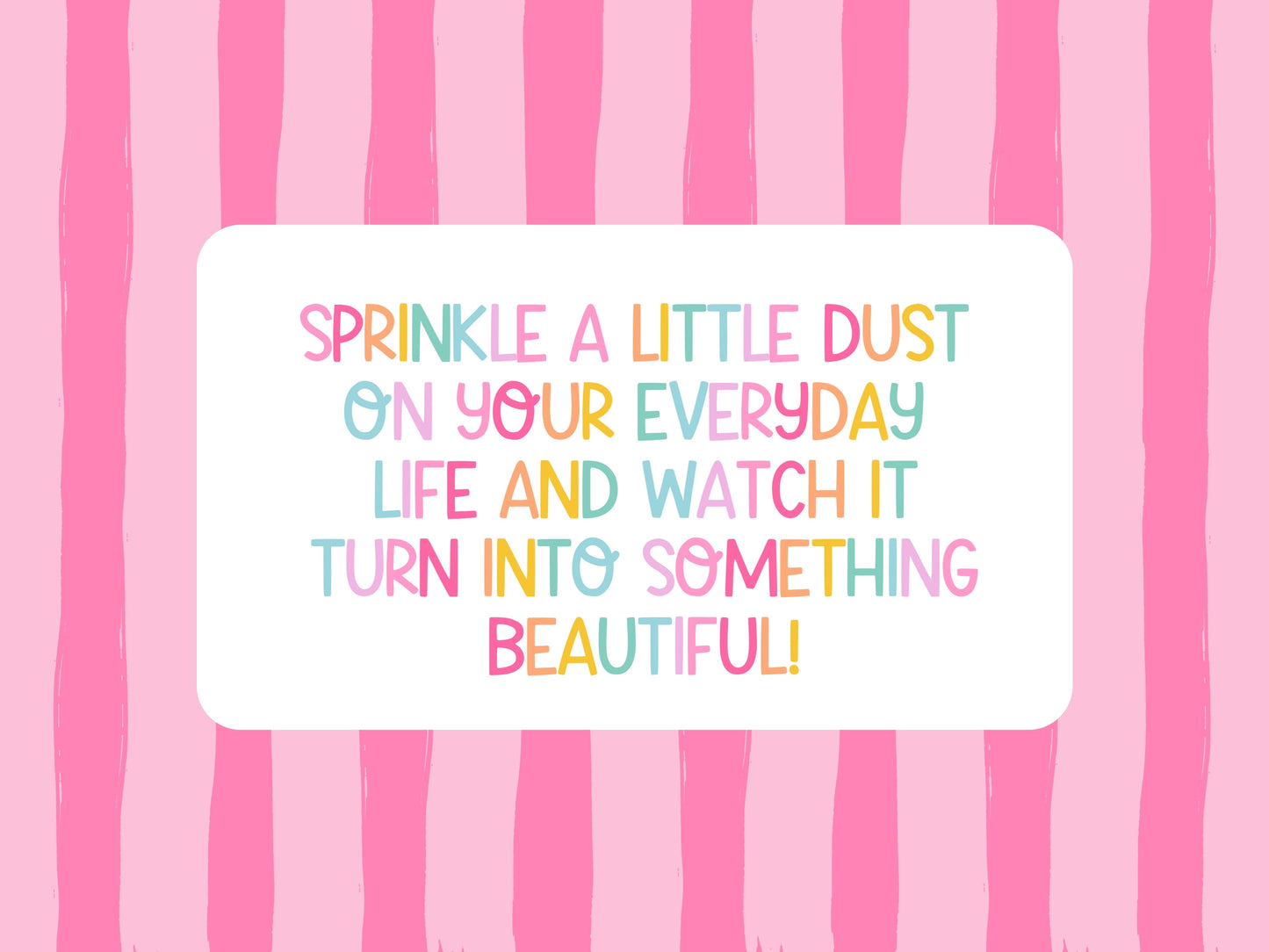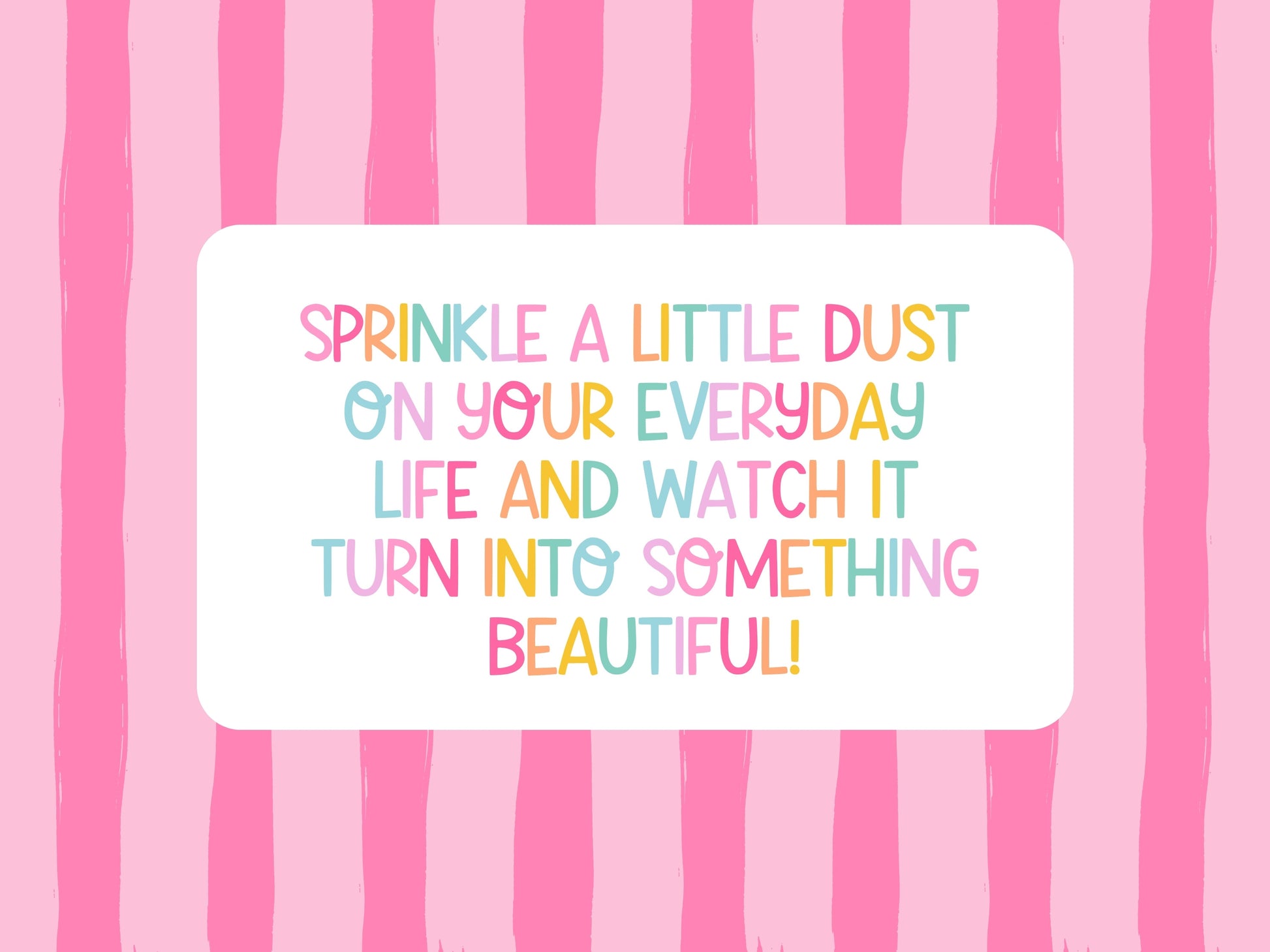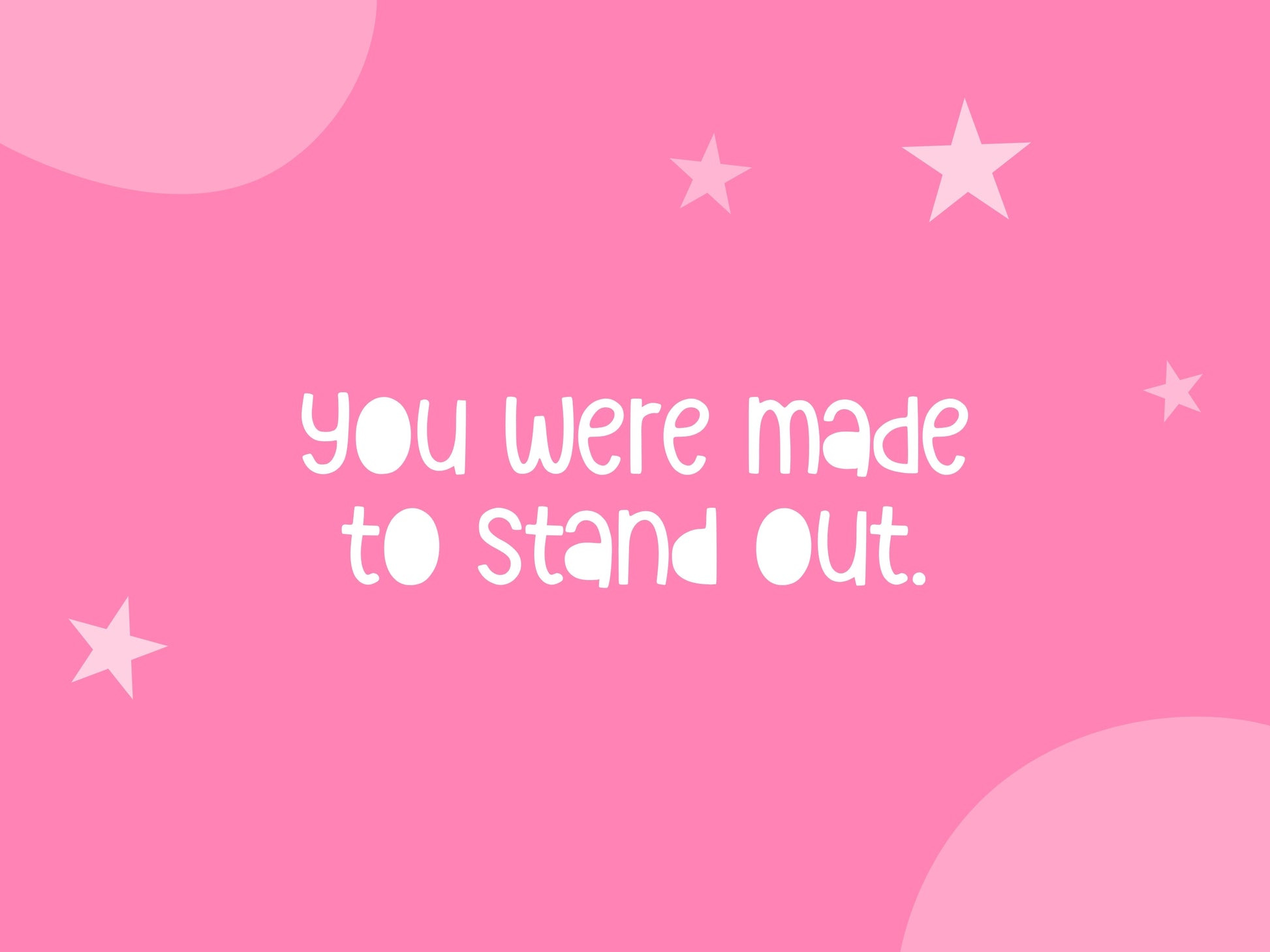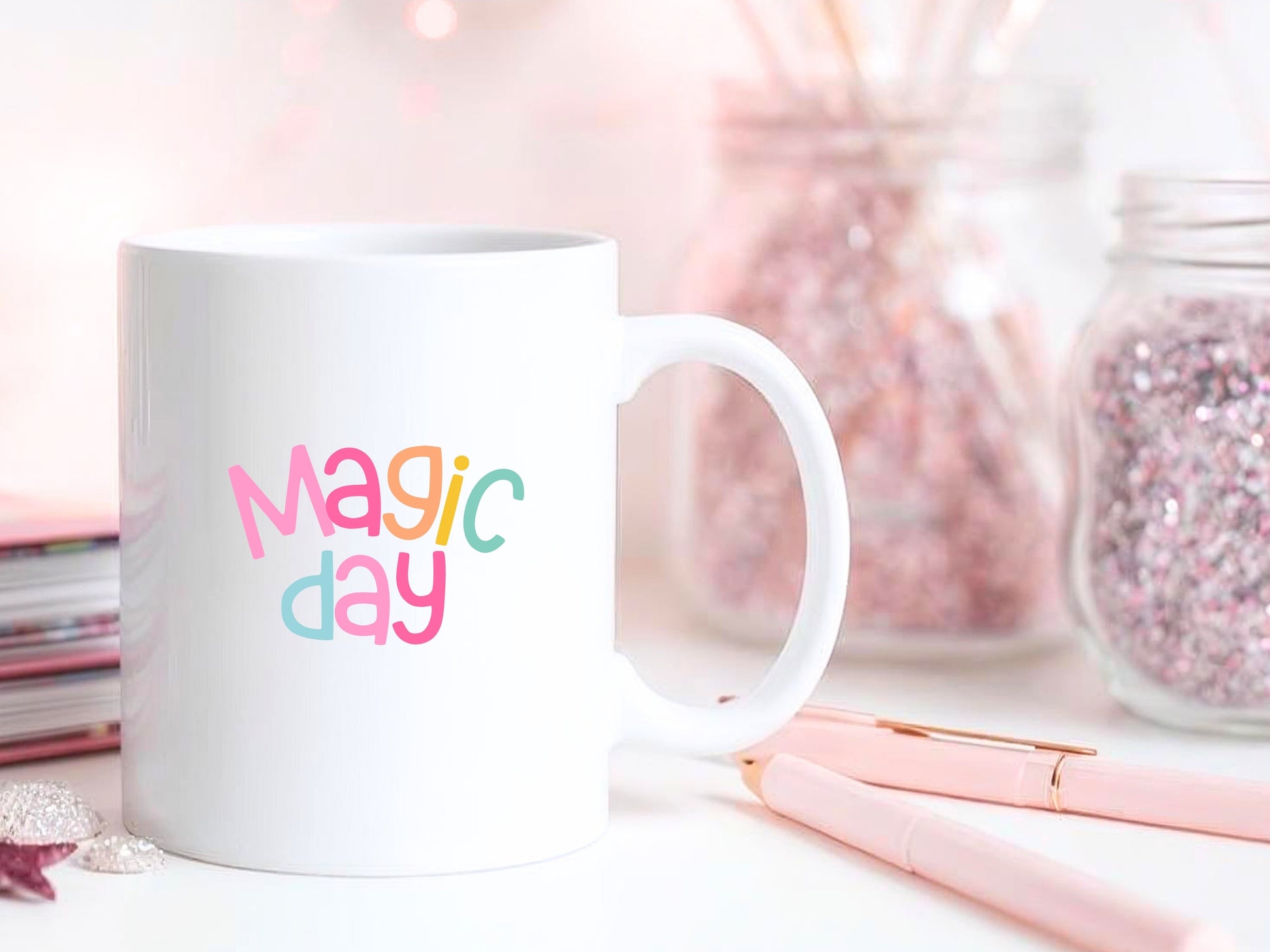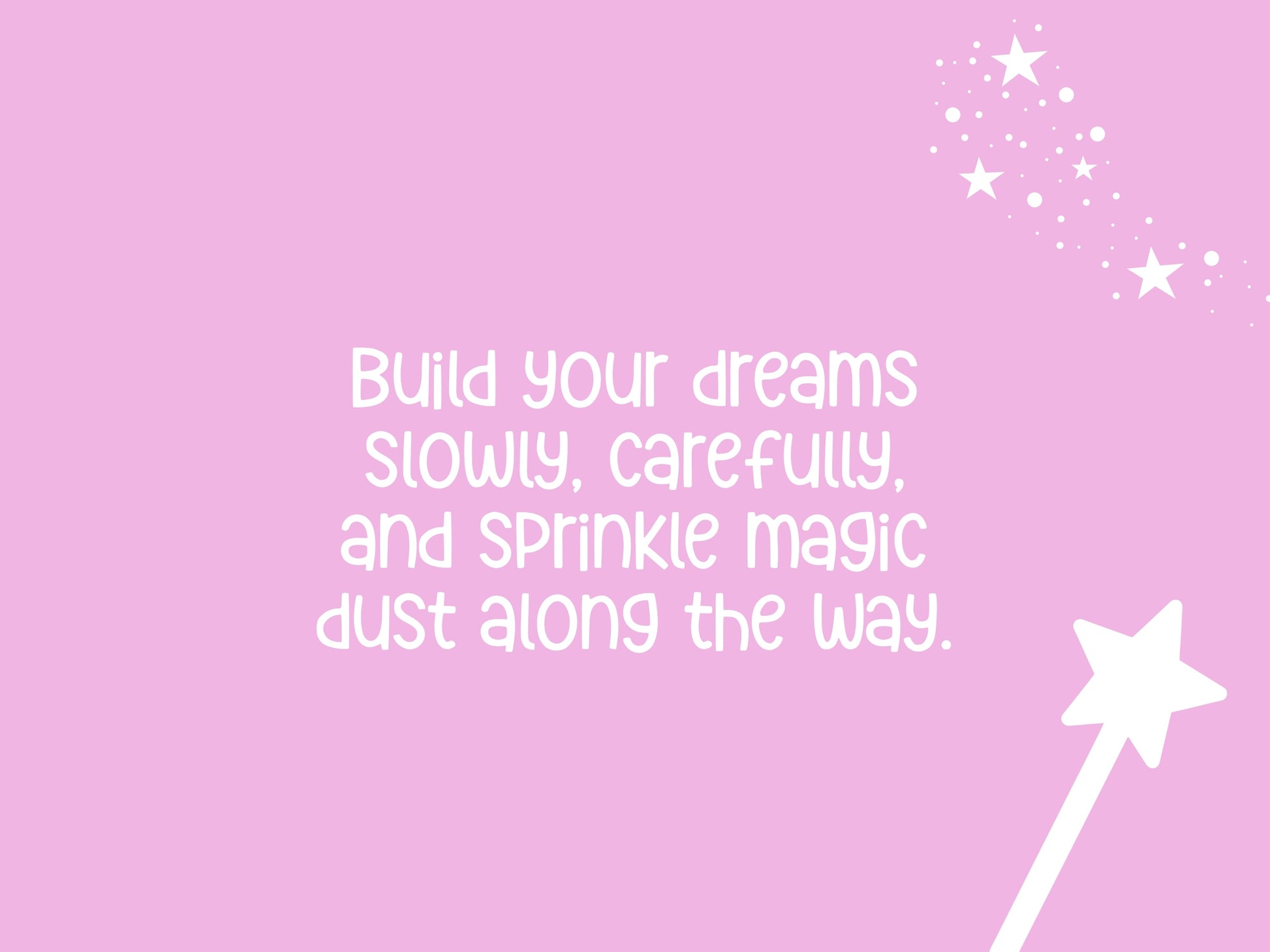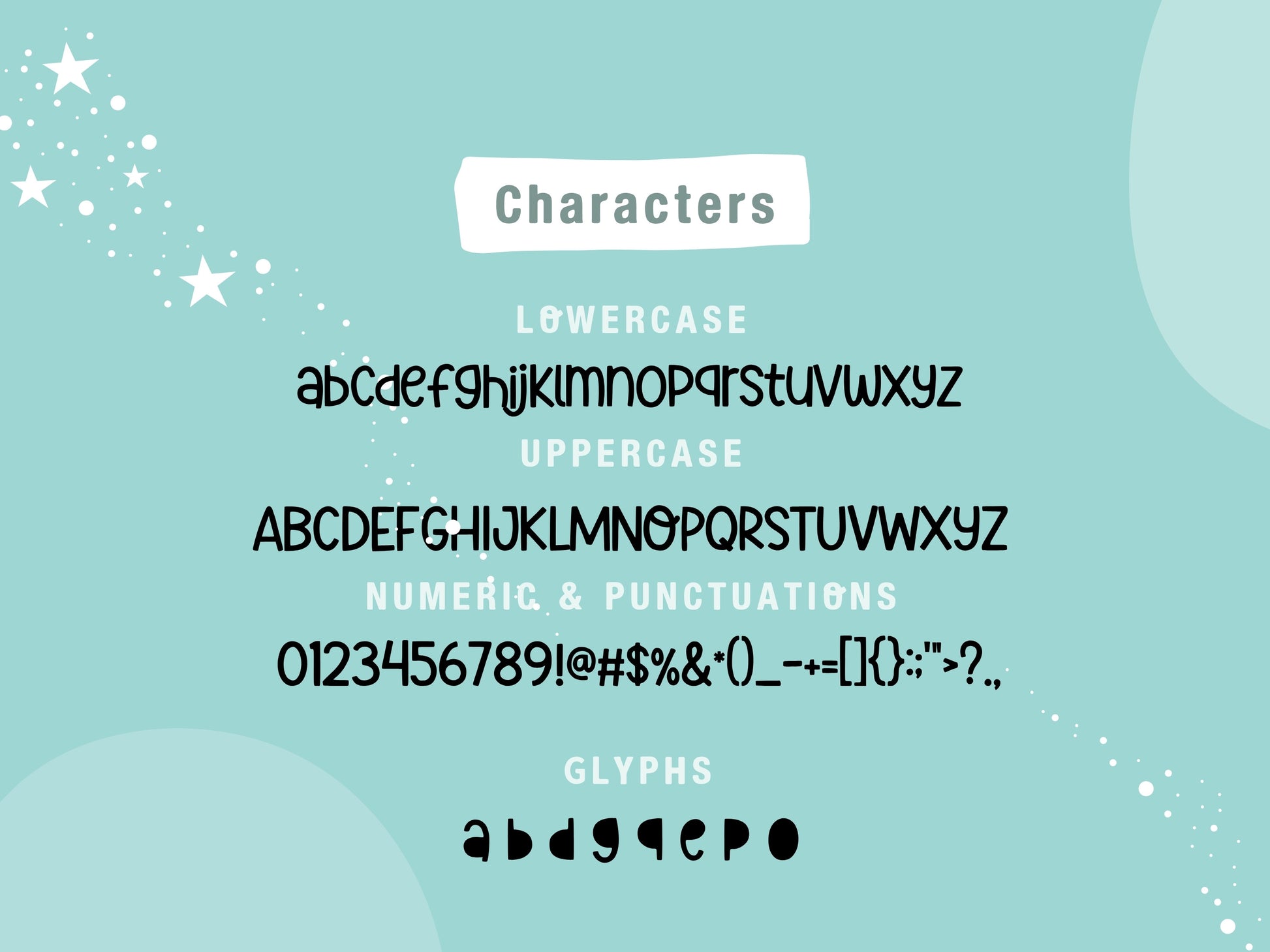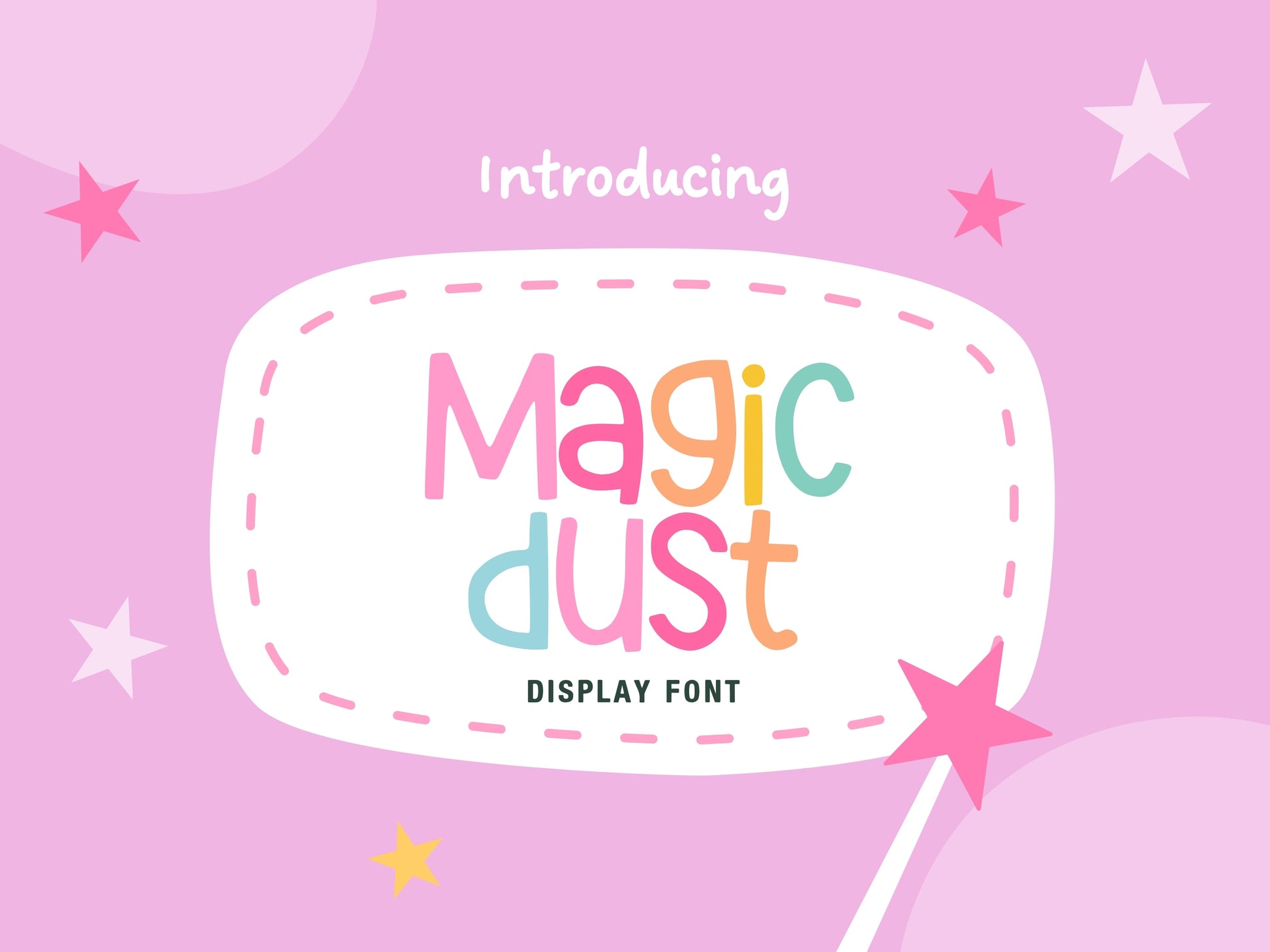
Magic Dust Font – Playful Rounded Display for Branding
Magic Dust is a playful rounded display font designed to bring fun, personality, and creativity into your designs.
With its soft curves and friendly letterforms, this font creates a cheerful and approachable look while staying clean and easy to read. It’s perfect for brands and products that want to feel lighthearted, colorful, and full of character.
Whether you’re designing for packaging, stickers, social media, or creative branding, Magic Dust helps you create a cohesive and eye-catching visual style.
Perfect For:
• boutique shop owners
• sticker and stationery shops
• kids and toy brands
• handmade product businesses
• digital product sellers
• colorful brand identities
• packaging and labels
• social media graphics
Features:
• playful display font
• easy to read, rounded letterforms
• clean and bold style
• works for print and digital use
• ideal for branding and product design
* Not every letter will have an alternate version—only certain letters do.